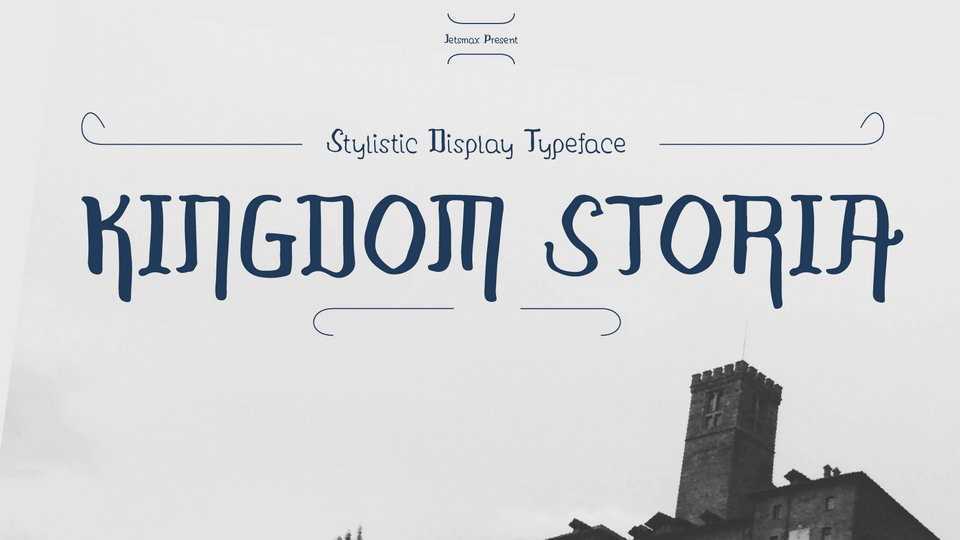
Download Kingdom Storia font, a hand lettered typeface inspired by the brave heart of the warriors. Kingdom Storia font that sharp, but still soft around the edges, will make your projects look powerful!
Designer: Jetsmax Studio